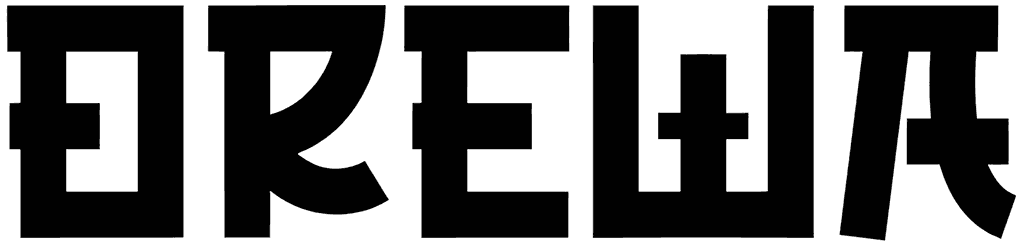
Oishi font can take you to the space of stars and sky. This tribal and geometric font does not support lowercase letters and numbers. But its notable characters are designed wonderfully as if they show the connection of stars.
As a result, we suggest that you use this futuristic and Japanese font in the design of animation posters, video games, astronomy books, and many street designs and designs on t-shirts.